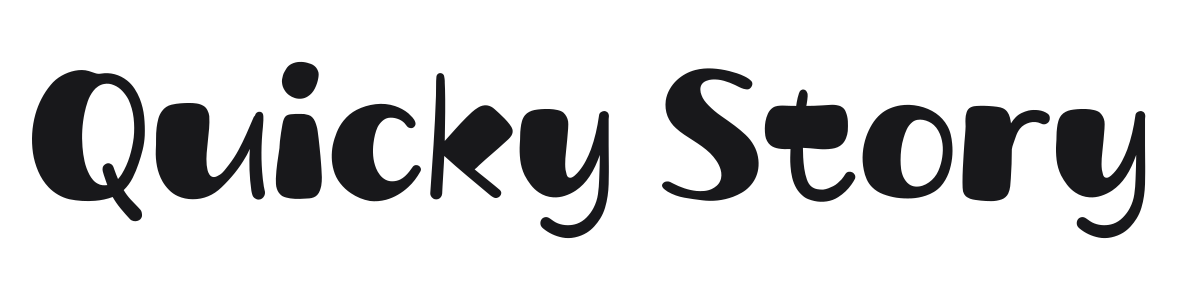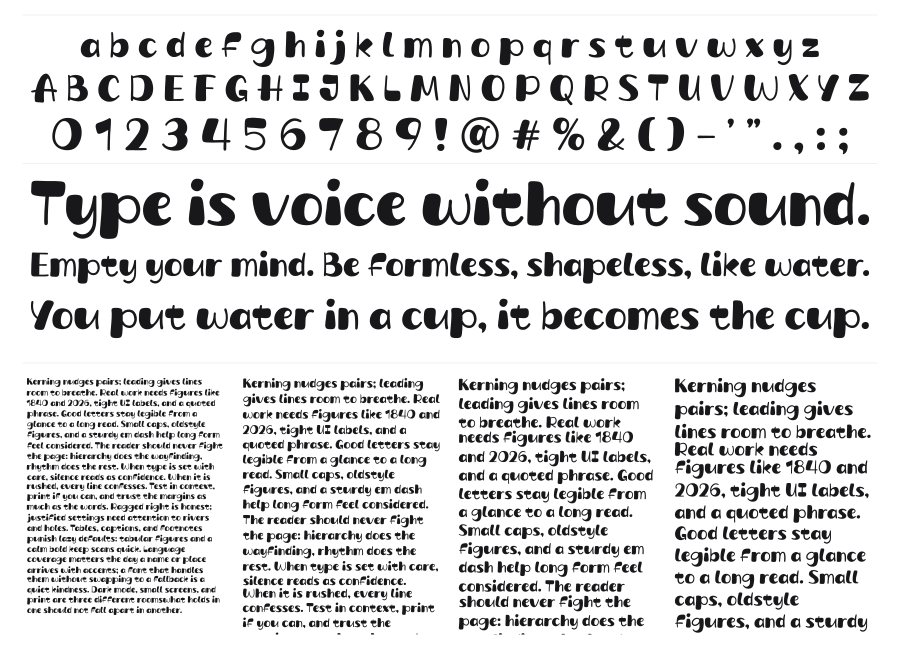
Quicky Story
Quicky Story is a bold casual hand-lettered script with chunky rounded strokes and a bouncy, irregular baseline. The exaggerated quirks in each character give it an authentic hand-drawn feel that sits somewhere between a children's book and a comic panel. It brings an immediate sense of warmth and fun to packaging, headlines, and kid-focused branding.